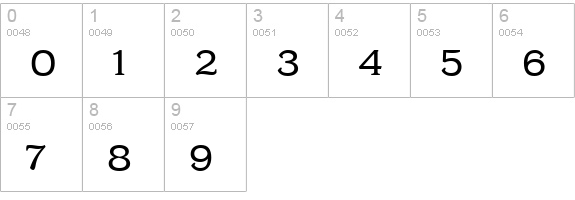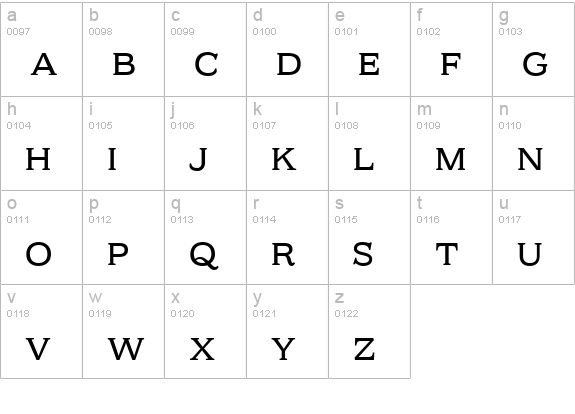
Kelvingrove Font Details
Kelvingrove font is a stylish and versatile typeface that exudes elegance and sophistication. With its unique design and sleek curves, this font is perfect for a wide range of design projects, from branding to editorial design. The Kelvingrove font is free to download at FontsMarket.com, making it accessible to designers and creatives looking to add a touch of class to their work. Whether you're working on a logo, website, or print materials, Kelvingrove font is sure to make a statement and elevate your design to the next level. Download this exquisite font today and unleash your creativity with Kelvingrove.